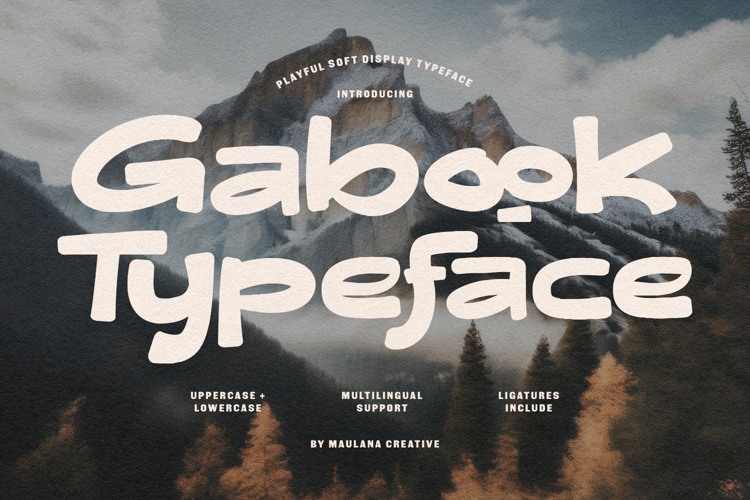
Gabook is a charming and approachable display typeface characterized by its soft, rounded terminals and organic, fluid forms. Designed to bring a sense of warmth and creativity to any project, this font balances a hand-drawn aesthetic with professional legibility. Its bold weight and unique ligatures make it an excellent choice for branding, social media graphics, editorial layouts, and advertising where a friendly, expressive personality is required. With full multilingual support and a versatile character set, Gabook provides a tactile, high-energy feel that resonates across digital and physical media.